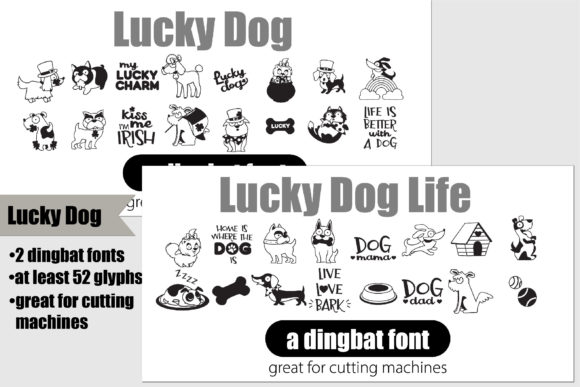
Dive into the world of Lucky Dog Font, a whimsical and charming dingbats font family created by Illustration Ink, exclusively for those seeking a touch of Irish luck in their designs. Embark on a delightful journey with two captivating dingbat fonts, each brimming with 26 unique lucky dog-themed images, ready to unleash your creativity.
Picture this: a canvas adorned with the playful antics of lucky dogs, shamrocks, and rainbows, brought to life by the Lucky Dog Font. Let your imagination soar as you craft personalized greeting cards, scrapbook pages, and vinyl decals that radiate Irish cheer. The possibilities are endless with this enchanting font duo.
With the Lucky Dog Font, you hold the key to unlocking a treasure trove of creative expressions. Its playful nature lends itself seamlessly to a myriad of projects, allowing you to infuse a touch of Irish magic into your designs effortlessly.
But wait, there's more! The Lucky Dog Font is not merely a collection of images; it's an invitation to embark on a whimsical adventure. Each stroke, each curve, and each carefully crafted detail beckons you to explore the boundless realms of your imagination. Let the Lucky Dog Font be your guide as you create designs that spark joy, laughter, and a sprinkle of Irish charm.
So, embrace the luck of the Irish with the Lucky Dog Font. Let your designs radiate with the playful spirit of lucky dogs and the vibrant hues of St. Patrick's Day. Unleash your creativity and embark on a journey filled with laughter, luck, and endless design possibilities.